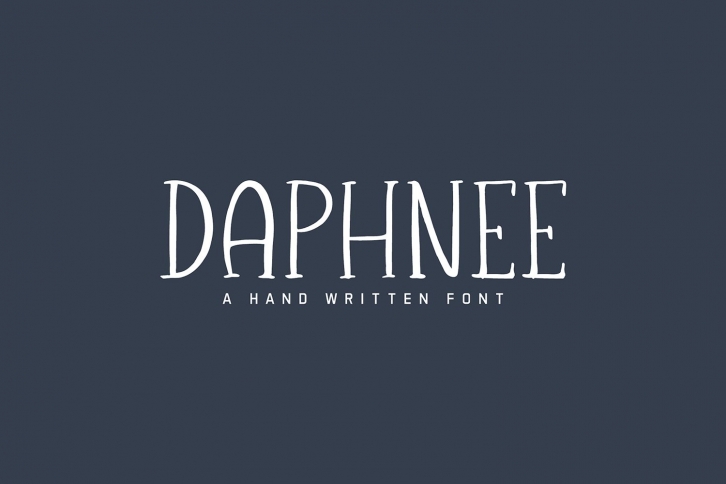
Daphnee Slab Serif is a beautiful font that was designed by Creativetacos. It's a great choice for designers and creatives who need such a font. It was released on January 23, 2022 and the file size is 15.81 MB. Daphnee Slab Serif may give a more youthful, expressive and casual look to your project. It is a very beautiful, refined, elegant, and high-quality font.